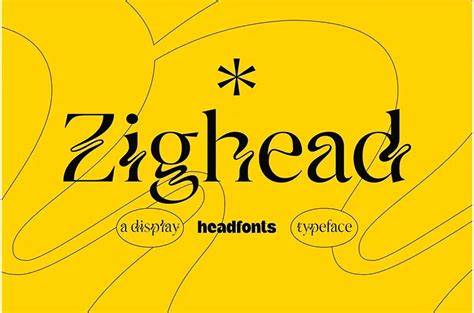
Zighead Display Font. Headfonts is happy to present a new display font, named zighead. Web zighead is an uppercase and lowercase font with standard latin script support, numerals, and punctuation.
This decorative font features strong and unique. Headfonts is happy to present a new display font, named zighead. Web zighead is an uppercase and lowercase font with standard latin script support, numerals, and punctuation.
Web zighead is an uppercase and lowercase font with standard latin script support, numerals, and punctuation. Web zighead is an uppercase and lowercase font with standard latin script support, numerals, and punctuation. This decorative font features strong and unique. Headfonts is happy to present a new display font, named zighead.